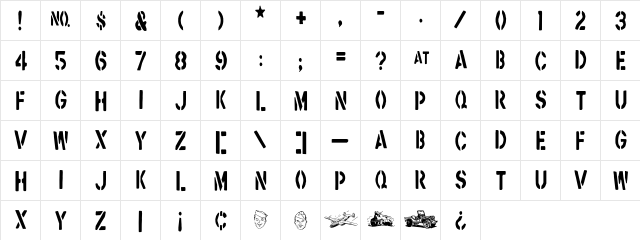
FootLocker Regular
Design Context for FootLocker Typeface
FootLocker is a composed and adaptable typeface that performs quietly and consistently across a wide range of design contexts.